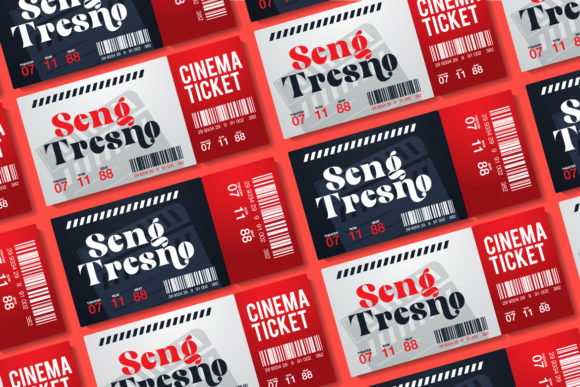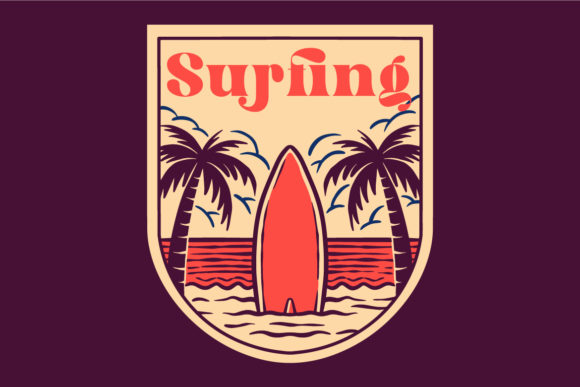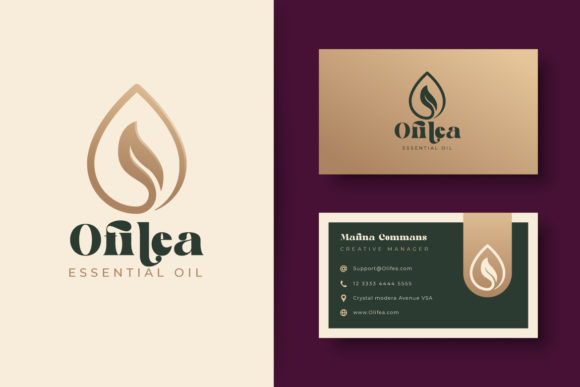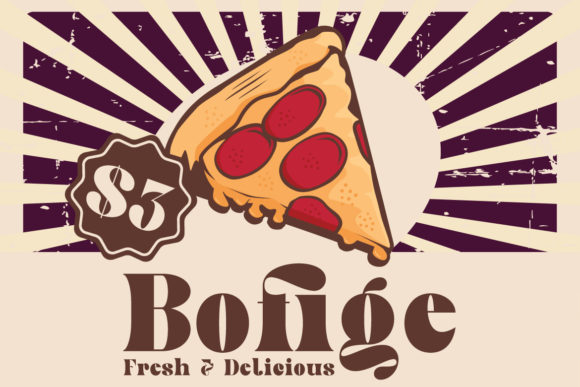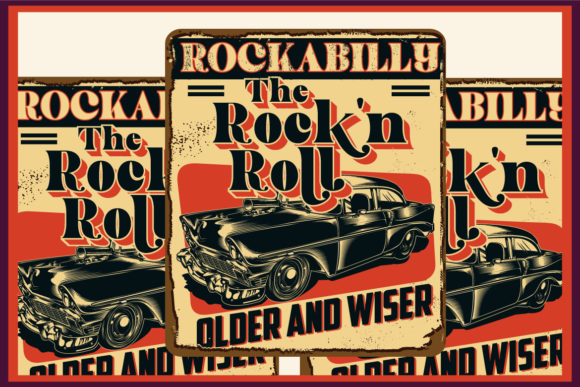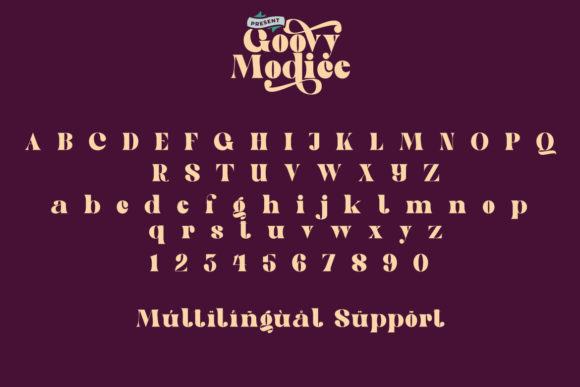
Bring Your Creative Ideas to Life with Goovy Modice Font
Have you ever been brainstorming a new project, only to feel like something’s missing? You’ve got the concept, the vision, but the design just isn’t popping. That’s where the right font can make all the difference.
Enter Goovy Modice Font, a modern and bold display font designed to elevate your creative ideas and make them truly stand out. With its sleek, eye-catching style, Goovy Modice Font is perfect for designers looking to add a touch of sophistication and flair to their projects.
Whether you’re working on a marketing campaign, a logo design, or a social media graphic, Goovy Modice Font is a valuable addition to your toolkit. Its versatility and bold personality make it an ideal choice for designers looking to make a lasting impression.
Goovy Modice Font Key Features
- Unique Characteristics: Goovy Modice Font features a distinctive, hand-drawn style with intricate details and ornaments, making it ideal for creative and artistic applications.
Goovy Modice Font Review
First of all, I want to say that I’m really loving the unique feel of this font. It’s ✨ playful, fun, and super eye-catching. The bold weights are particularly effective for headings, and the italic styles are great for adding some flair to your text.
One thing that’s really working in favor of the Goovy Modice Font is its versatility. It’s perfect for anything from logos and branding to magazine covers and posters. It’s also ✨ highly legible, even at smaller sizes.
- ⚠️ Limited language support, which might be a problem for international projects
- ⚠️ Not suitable for body text, as it can be a bit too ornate and overwhelming
- ⚠️ Some characters might be missing or not as well-designed as others
Overall, I think the Goovy Modice Font is a great choice for any project where you want to add a bit of personality and flair. Just be mindful of its limitations and use it sparingly to get the best results.
For the most out of Goovy Modice Font, use it for:
1. Creating eye-catching headlines and titles.
2. Adding a touch of personality to your designs.
3. Creating a consistent brand identity.
Alternatives to “Goovy Modice Font” for Designers
Pacifico is a beautiful, elegant script font that is perfect for creating a sophisticated and stylish look. It’s ideal for use in branding, packaging, and advertising materials where a touch of luxury is desired.
Compared to Goovy Modice Font, Pacifico has a more refined and polished look, making it a great choice for designers who want to create a high-end feel. While Goovy Modice Font has a more playful and casual vibe, Pacifico is more suited for formal and professional applications.
Great Vibes is a modern, cursive font that is perfect for creating a fun and energetic look. It’s ideal for use in social media graphics, blog posts, and other digital materials where a playful and approachable tone is desired.
Compared to Goovy Modice Font, Great Vibes has a more relaxed and casual feel, making it a great choice for designers who want to create a laid-back and friendly atmosphere. While Goovy Modice Font has a more quirky and offbeat vibe, Great Vibes is more suited for modern and trendy applications.
Dancing Script is a lively, handwritten font that is perfect for creating a playful and whimsical look. It’s ideal for use in invitations, greeting cards, and other materials where a touch of personality is desired.